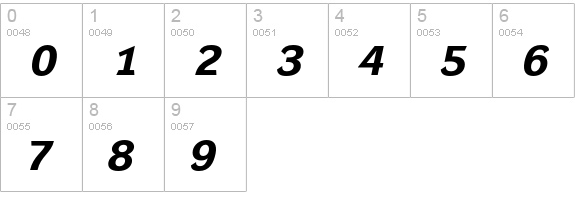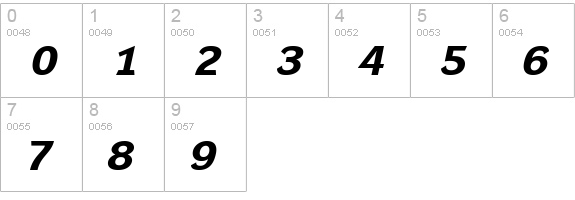
Dynamo Italic H X E is a distinctive, italic variant in the Dynamo typeface family \xE2\x80\x94 well suited to design and typography projects.
Dynamo Italic H X E font is a sleek and modern typeface that exudes elegance and sophistication. With its stylish italic design and bold letterforms, this font is perfect for adding a touch of flair to any project. The unique curves and angles of the letters give Dynamo Italic H X E font a dynamic and energetic feel, making it an excellent choice for headlines, logos, and branding materials. Best of all, Dynamo Italic H X E font is available for free download at FontsMarket.com. Whether you're a designer looking to add a fresh new font to your collection or a business owner in need of a striking typeface for your marketing materials, Dynamo Italic H X E font is sure to impress. Don't miss out on this fantastic opportunity to elevate your designs with this stunning font - download Dynamo Italic H X E today for free!